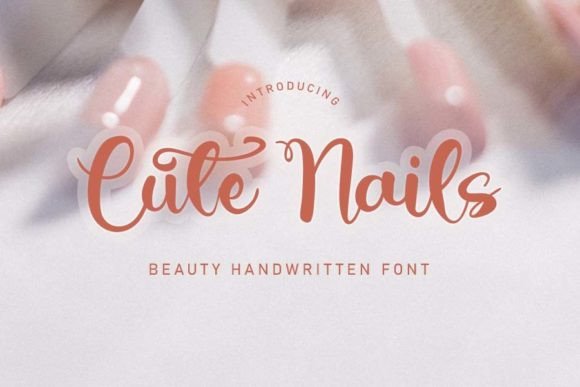
Unleash the charm and elegance of "Cute Nails Font" - a mesmerizing script font family that captures the essence of handwritten artistry. Inspired by the allure of beautiful nails, this font exudes both daintiness and sophistication, leaving an indelible mark on your designs.
Immerse yourself in the versatility of "Cute Nails Font," a true chameleon that adapts seamlessly to a myriad of creative endeavors. Its delicate strokes lend an air of charm to wedding invitations, adding a touch of romance to your special day. Express your gratitude with heartfelt thank-you cards adorned with this elegant font, leaving a lasting impression on the recipients. Transform ordinary quotes into captivating works of art, as the intricate details of "Cute Nails Font" bring your words to life.
Design greeting cards that radiate warmth and personality, carrying your messages of love and cheer. Elevate your brand identity with logos that exude both professionalism and a personal touch, or create business cards that leave a lasting impression, showcasing your attention to detail and creativity. The possibilities are endless, as "Cute Nails Font" seamlessly integrates into any design project, adding a touch of elegance and charm.